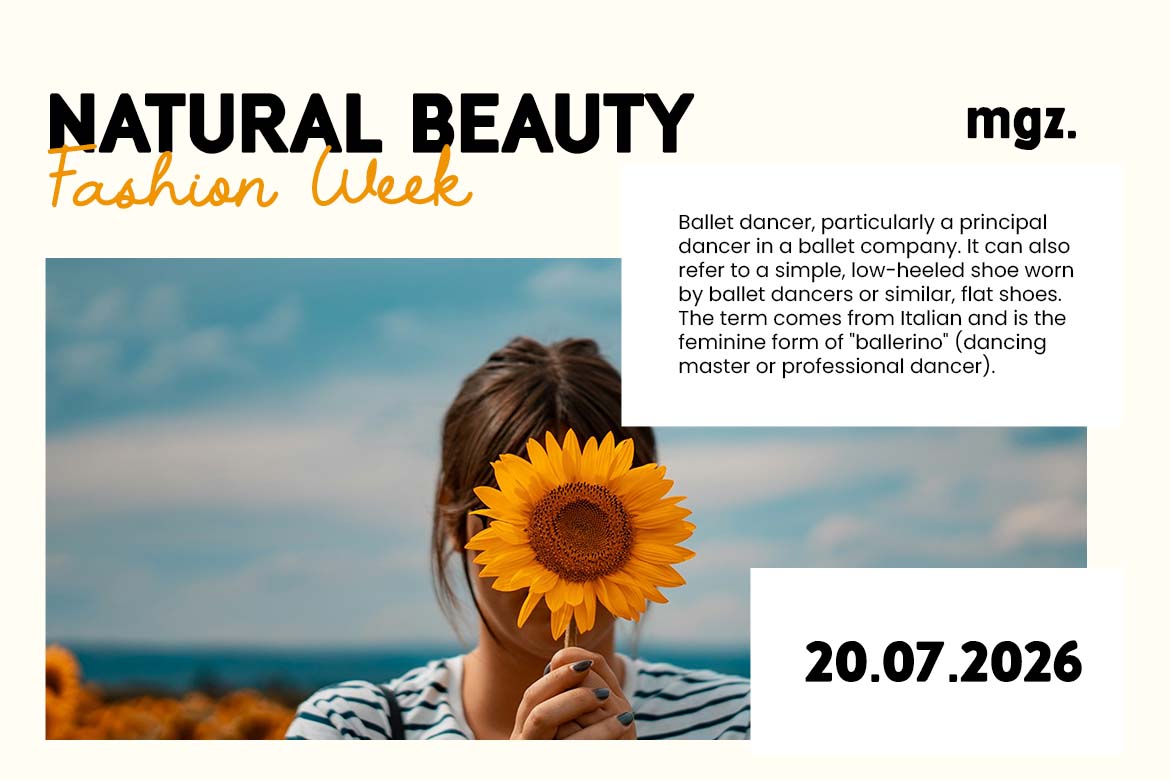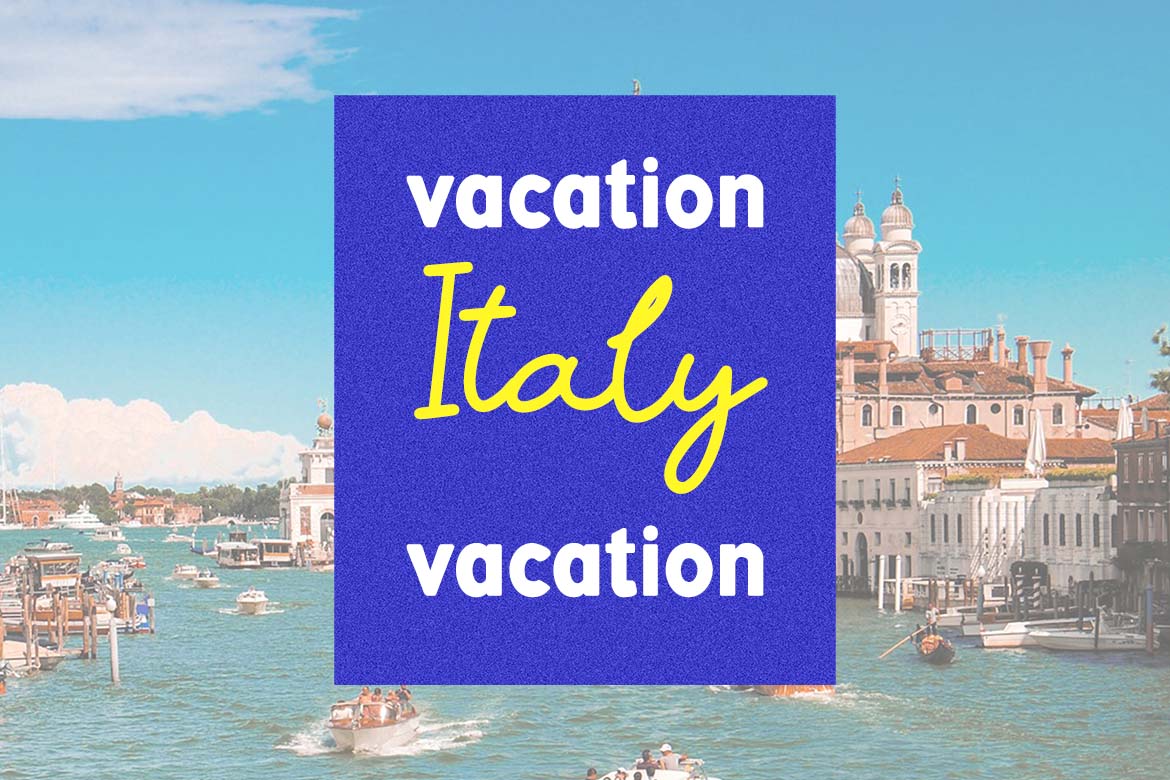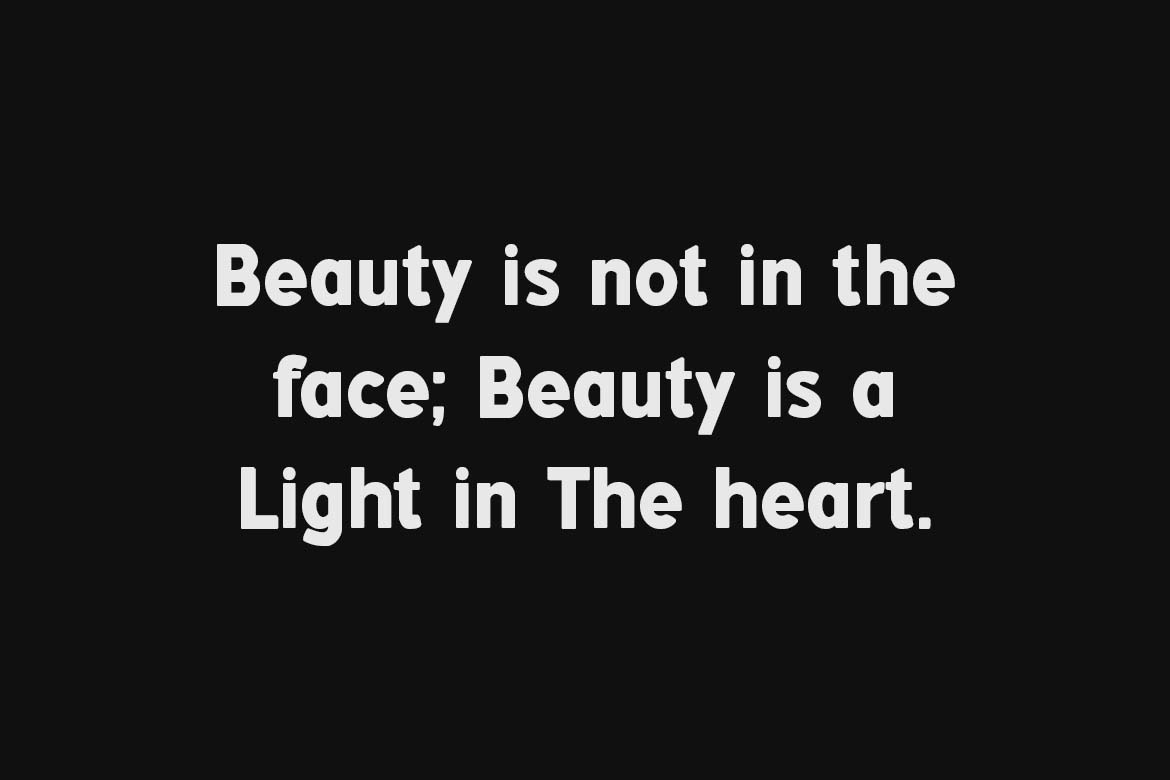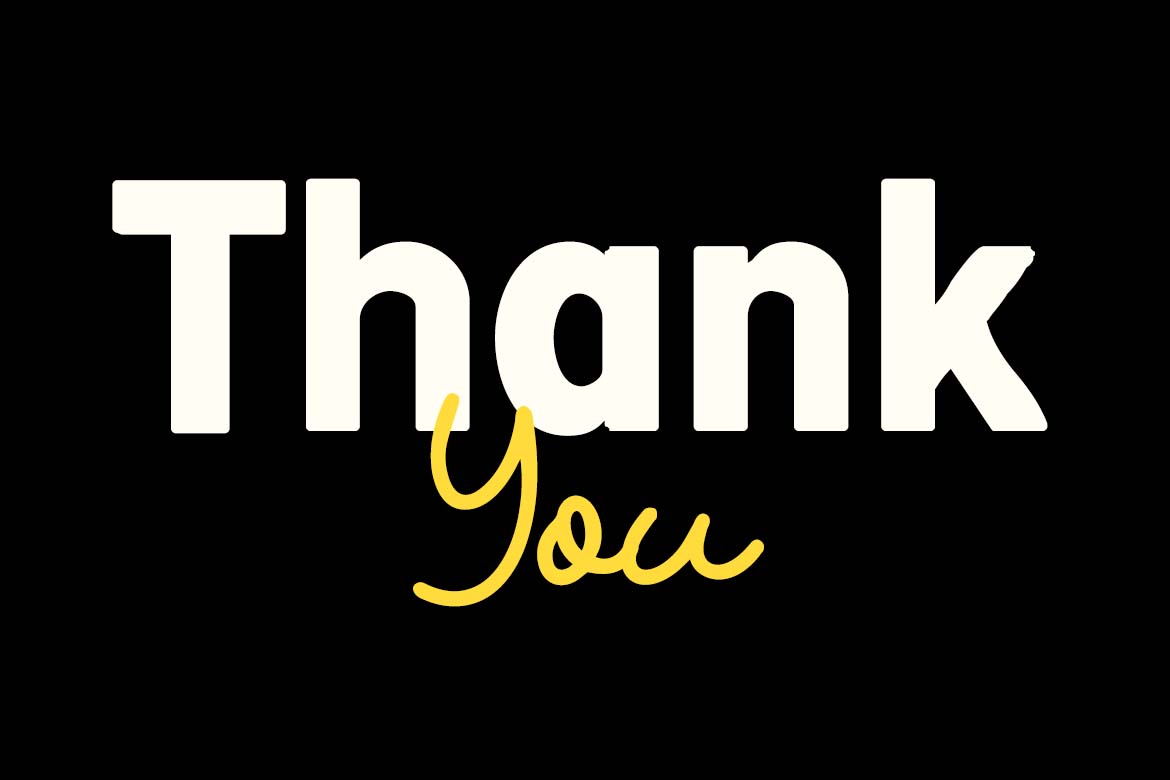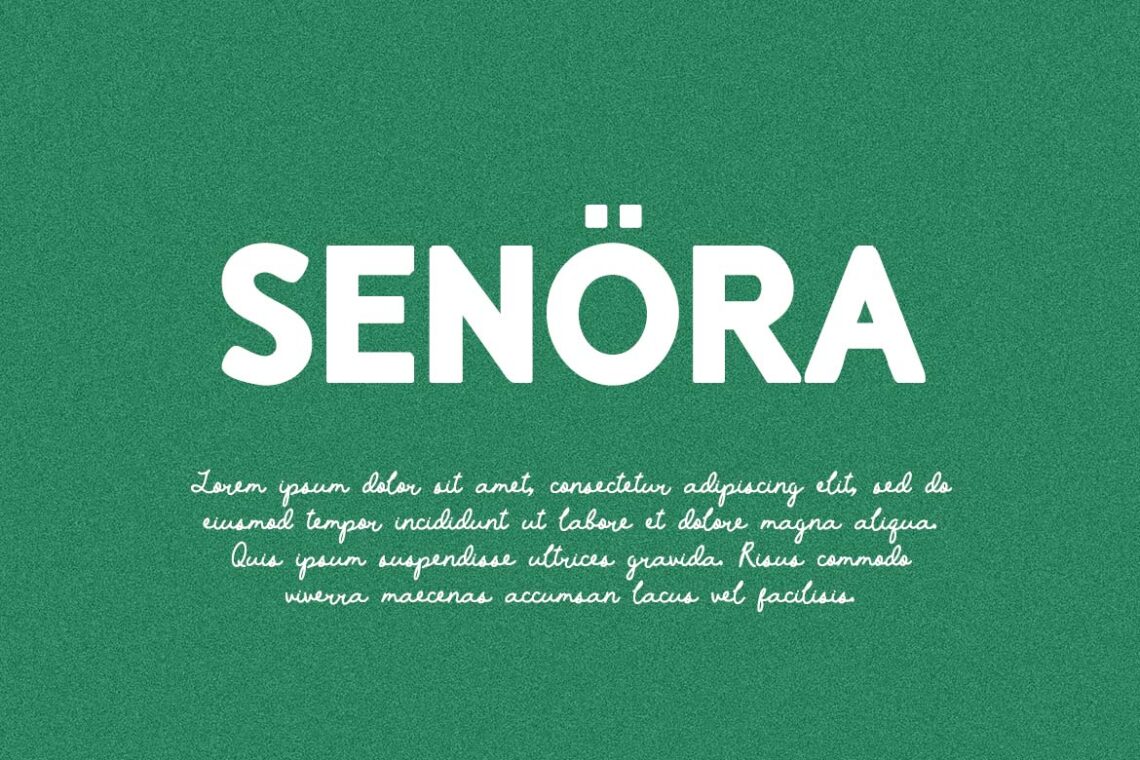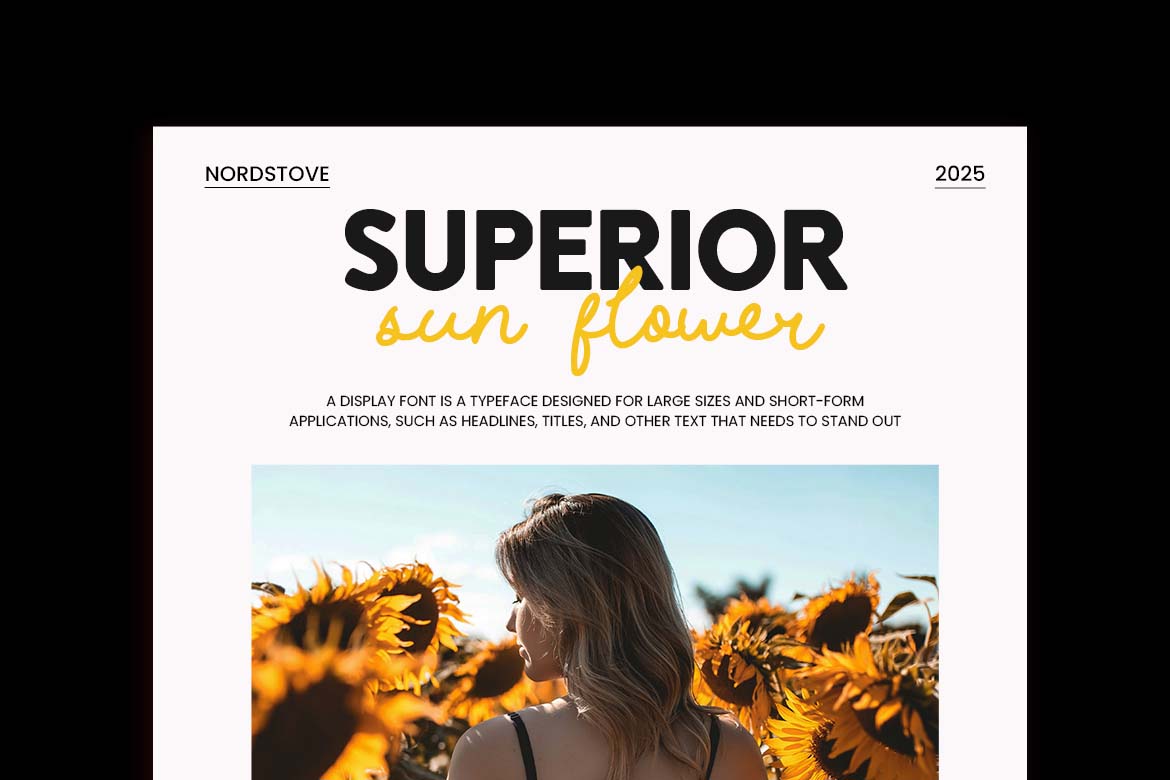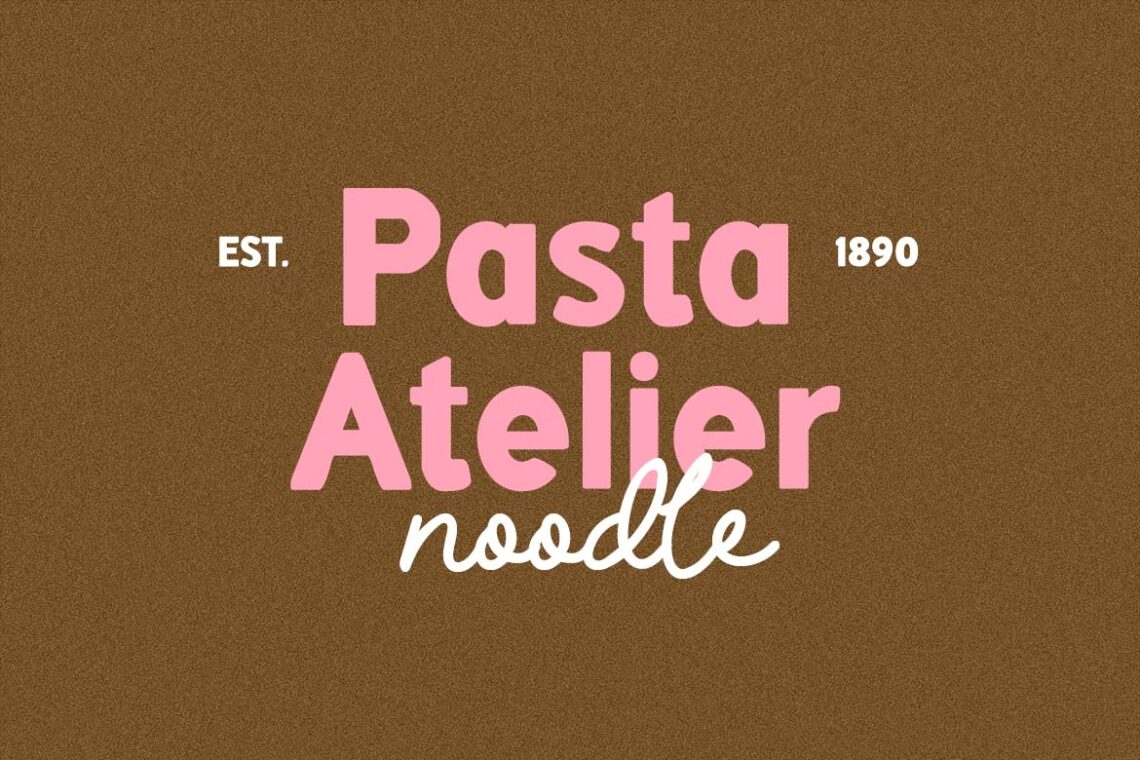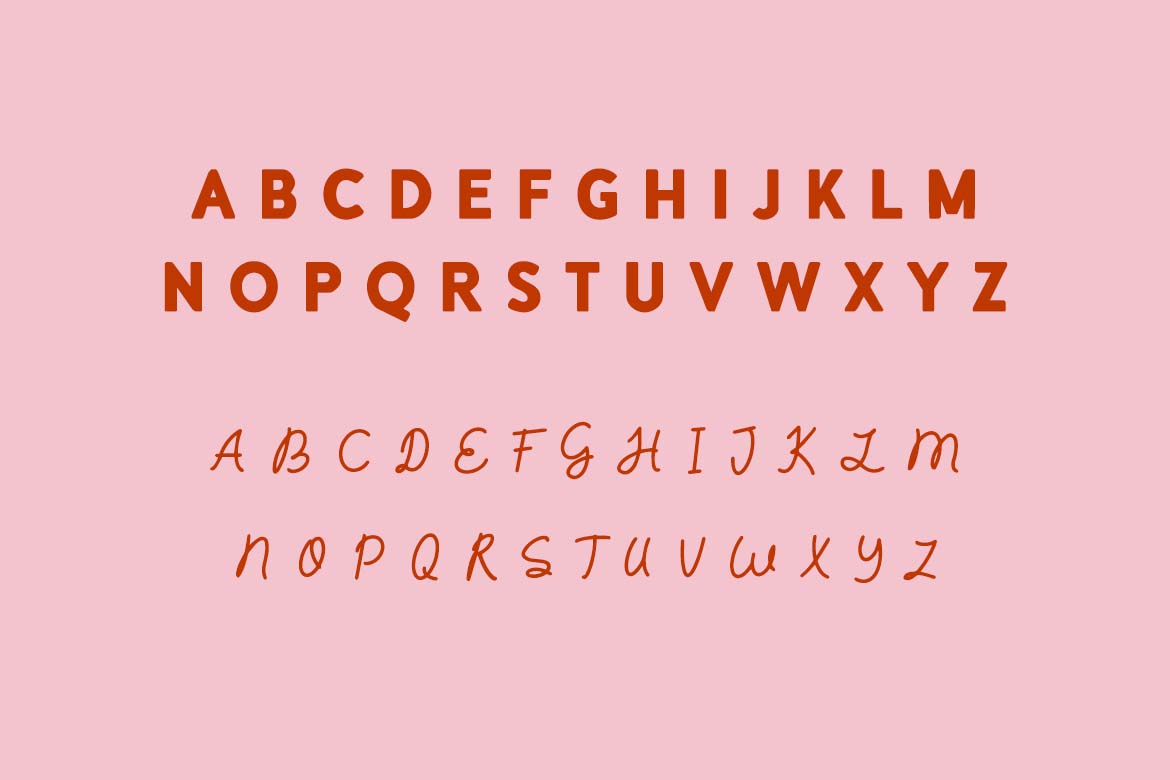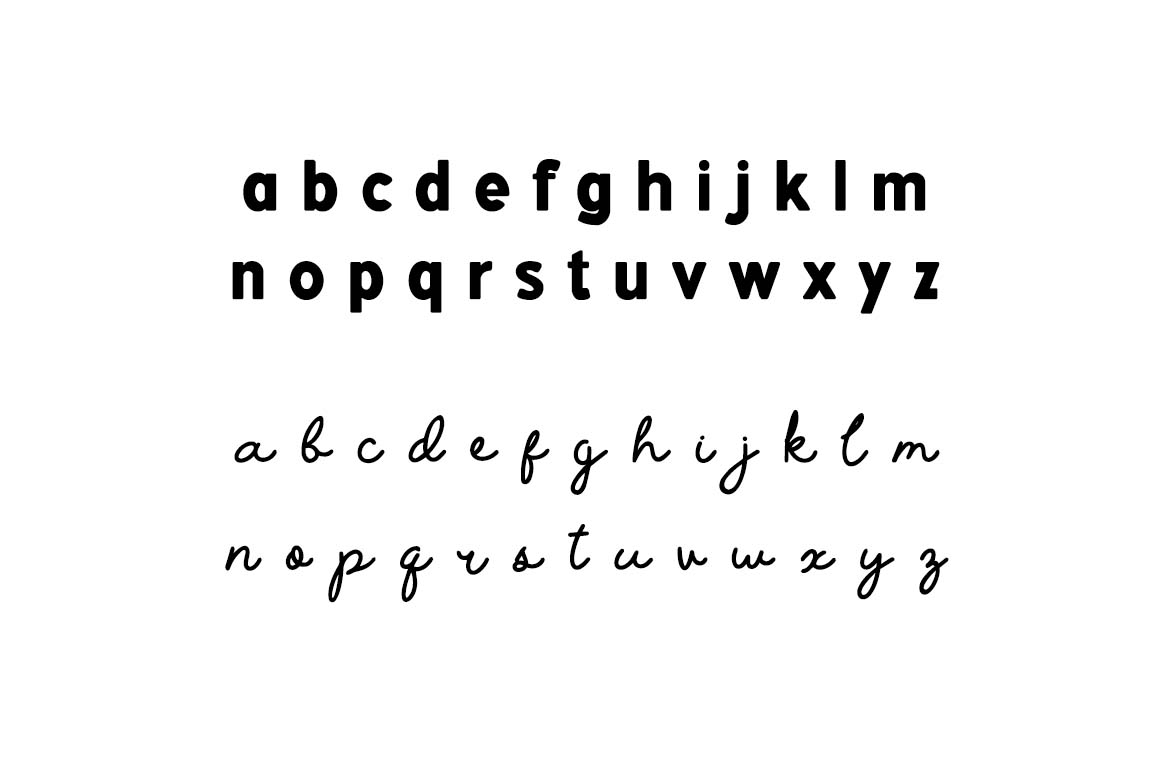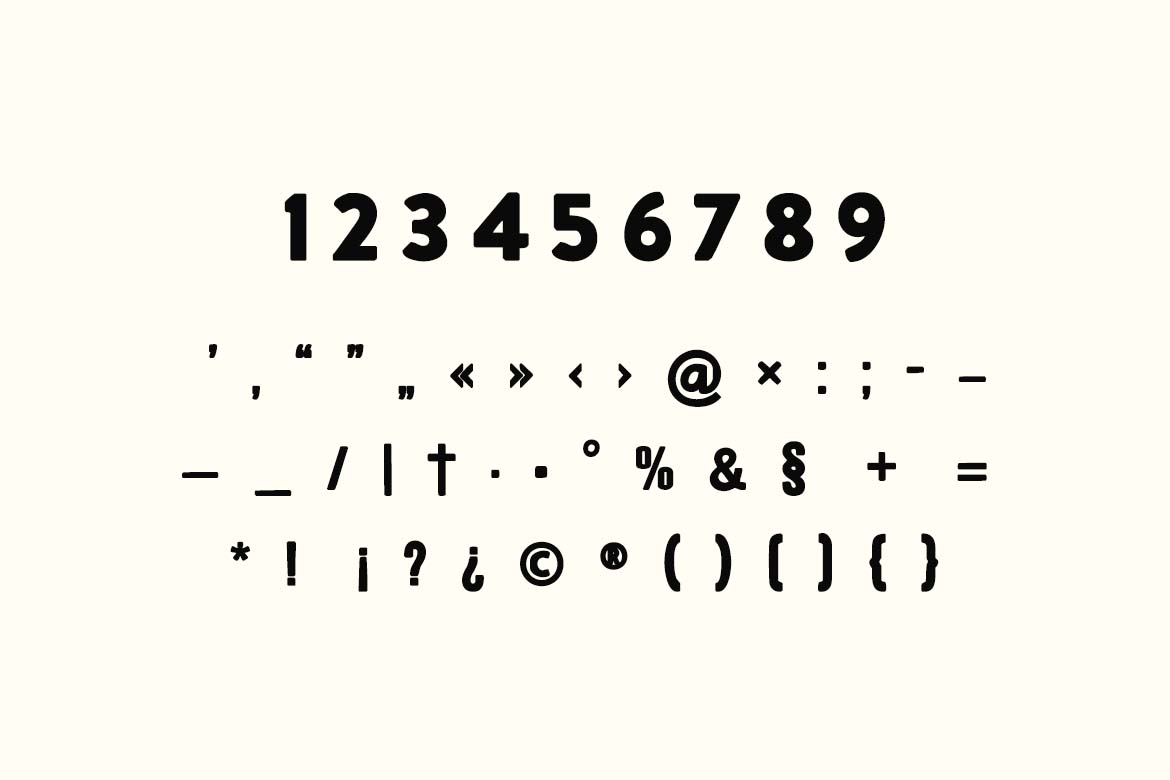
Boulevard Union Club Vintage Duo Font
Boulevard Union Club Vintage Duo Font . The modern display font feels beautiful classy, elegant, and stylish. This font is ideally suited for a wide variety of projects, such as signature, stationery, logo, wedding, typography quotes, magazine or book covers, website headers, branding, and more. Also, fashion-related branding or editorial design displays both masculine and feminine qualities.